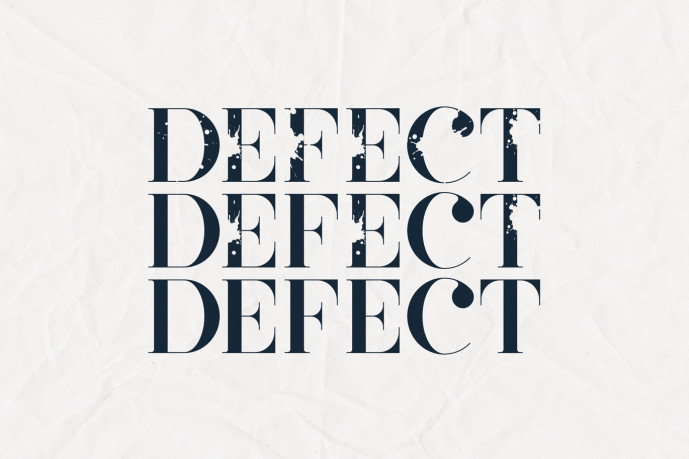
Defect Font
Designer: VPcreativeshop
Defect Font a distinctive aged serif display typeface that combines elegant vintage letterforms with authentic worn textures and imperfect details. Designed to evoke the character of aged print, weathered signage, and timeless editorial design, Defect offers a unique balance of sophistication and raw texture. Each letter features carefully crafted imperfections that create an organic, handcrafted appearance while maintaining excellent legibility.